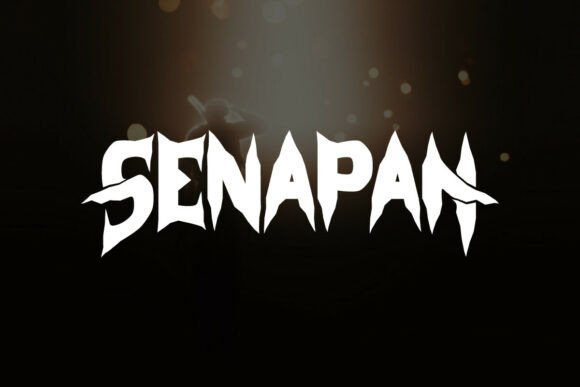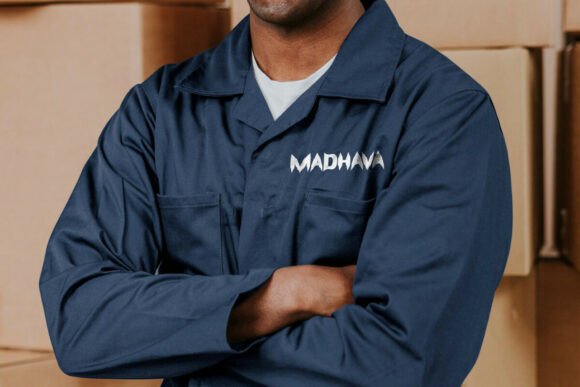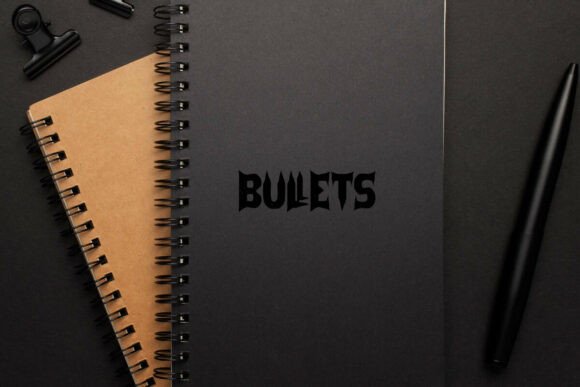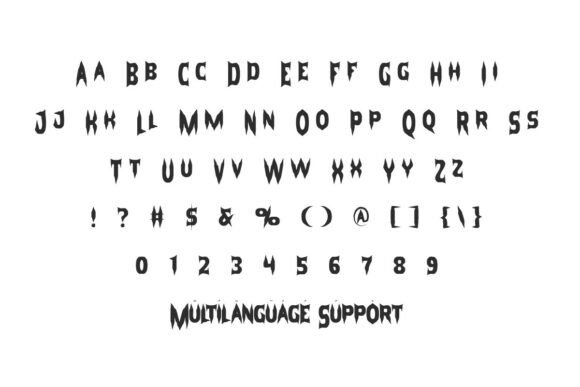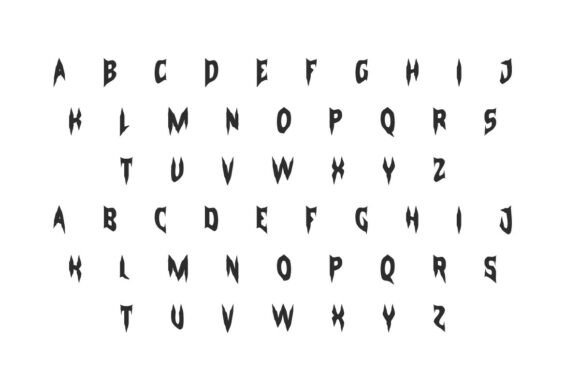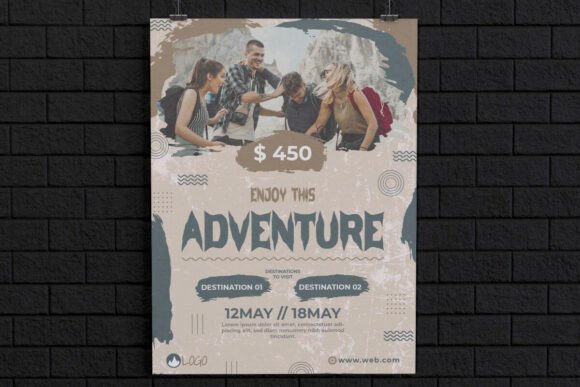
Introduction to Senapan Font
Command authority with the Senapan font, a fierce blackletter-inspired display typeface that fuses traditional power with a sharp, modern edge.
Inspired by classic blackletter typography, this Senapan typeface delivers unmatched strength and attitude, making it an essential tool for streetwear labels, gaming UI, and heavy metal music branding The aggressive, “awful” black metal aesthetic of the Senapan font ensures high impact on billboards, band posters, and racing graphics.
Key Features of Senapan Font